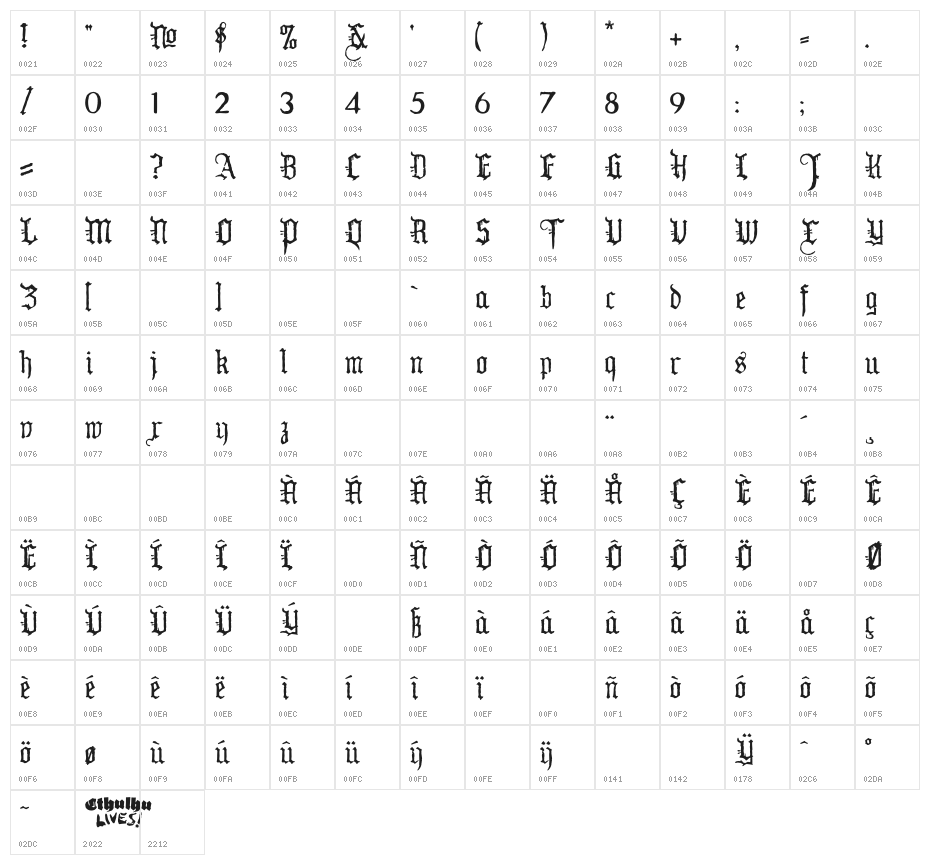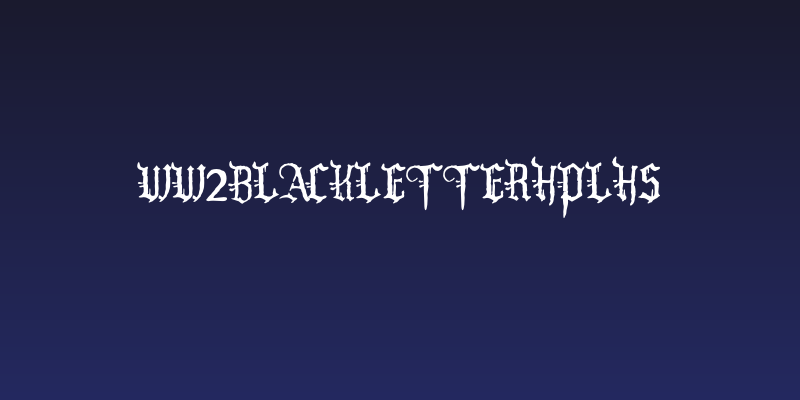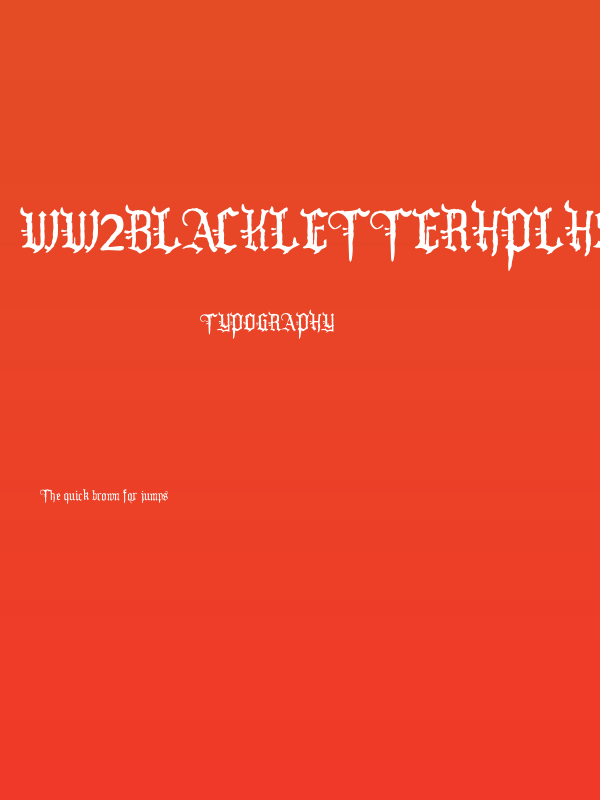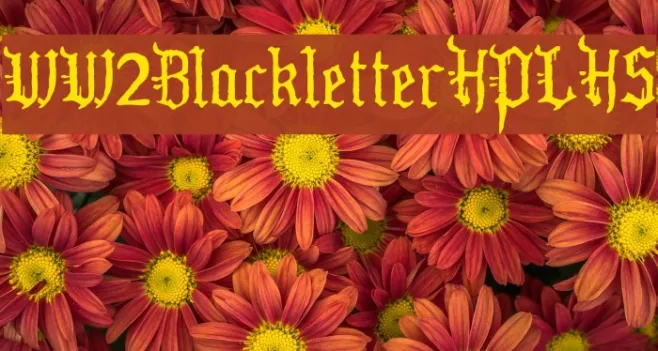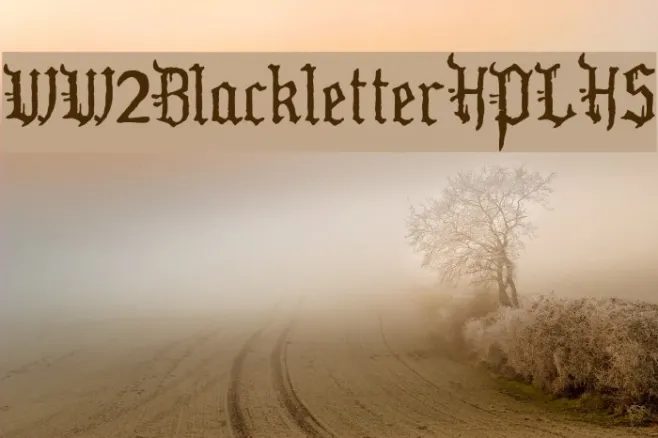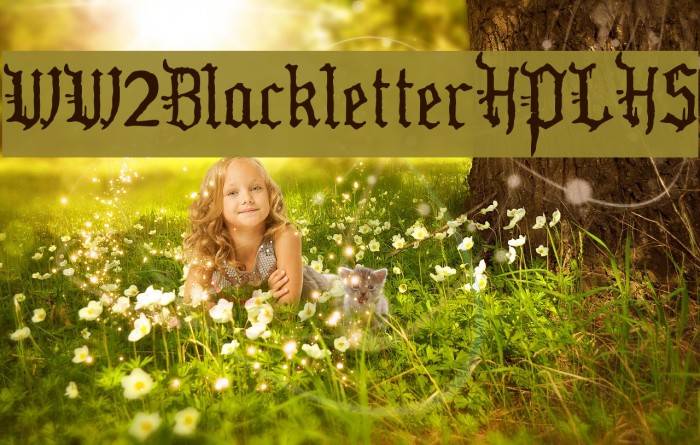
WW2BlackletterHPLHS Font
WW2BlackletterHPLHS Description
This font features a traditional blackletter style, characterized by its intricate and ornate design. The letters exhibit sharp, angular lines with dramatic flourishes and embellishments, reminiscent of medieval script. The uppercase letters are particularly elaborate, with extended serifs and decorative elements that give them a gothic appearance. The lowercase letters maintain the same stylistic elements but are slightly more restrained, ensuring readability. The numerals are consistent with the overall theme, featuring bold strokes and a distinctive old-world charm. Special characters are equally ornate, fitting seamlessly with the rest of the character set.
| Overall Style | Vintage |
| Use Case | Logos, Headlines, Decorative text |
| Proposed Projects | Ideal for historical documents, fantasy-themed designs, book covers, and branding that requires a vintage or gothic aesthetic. |